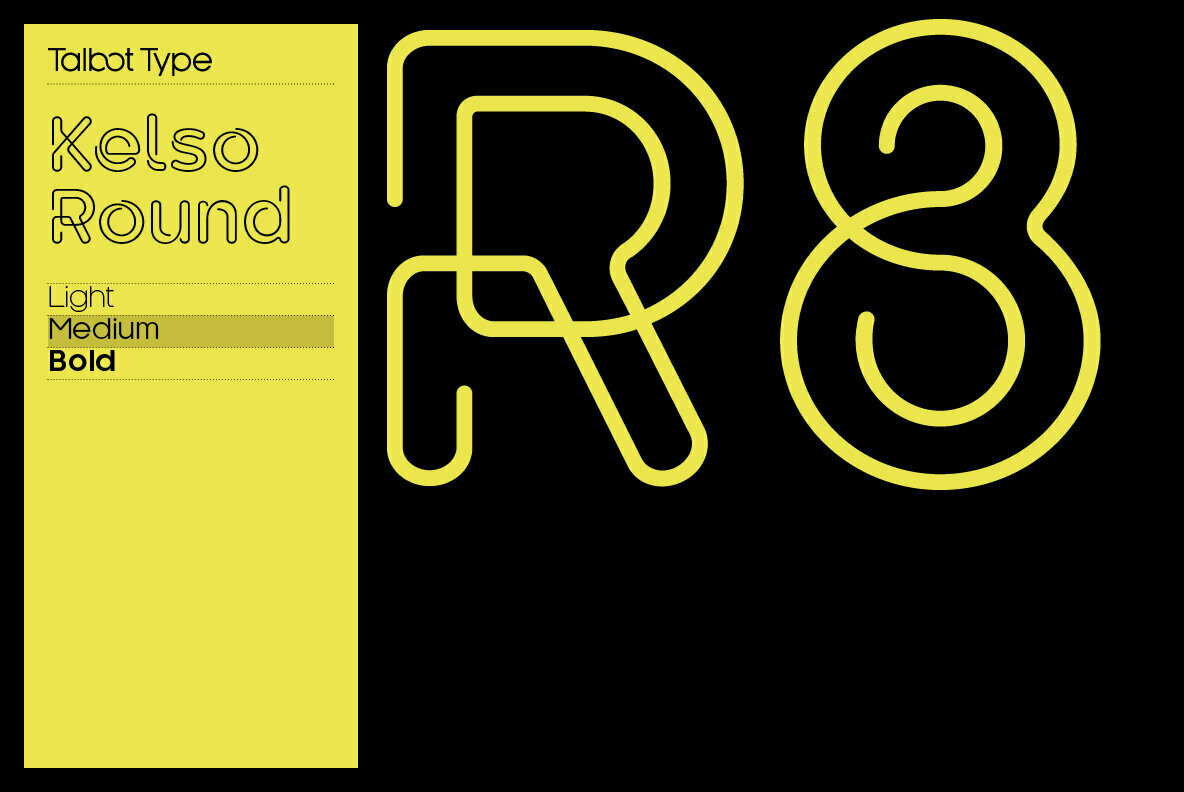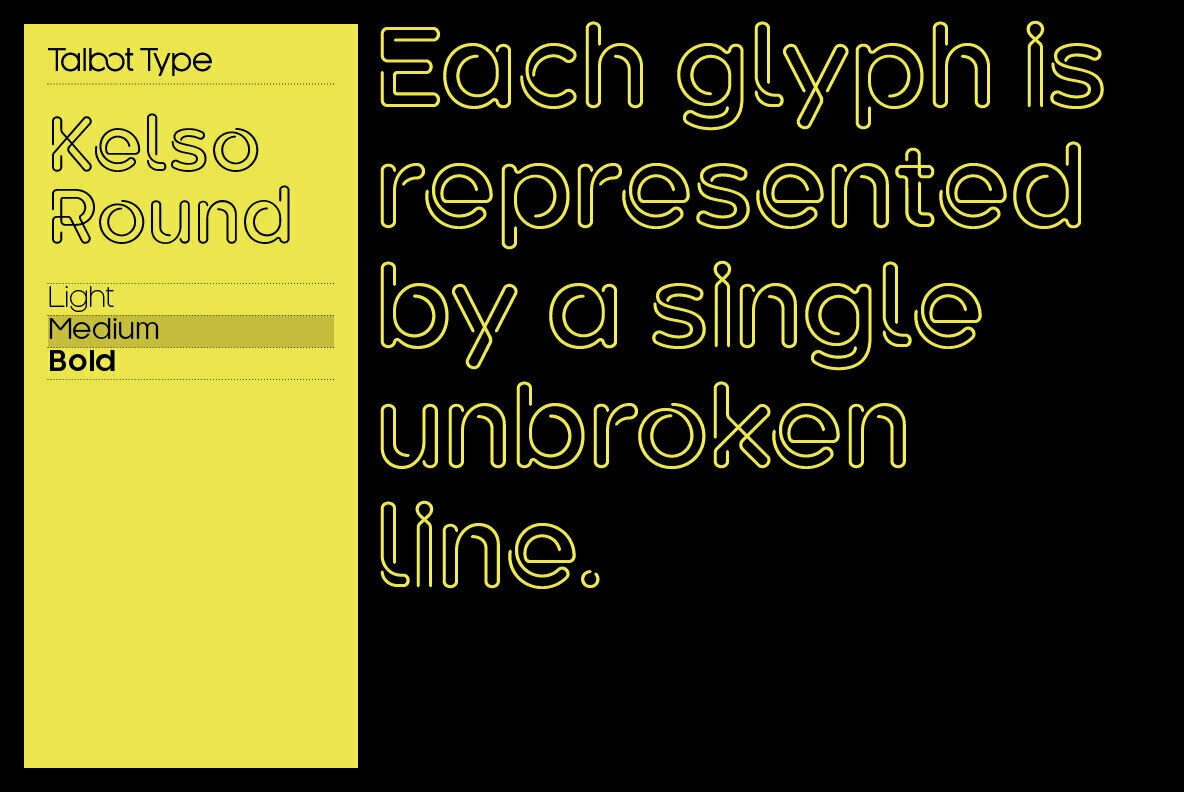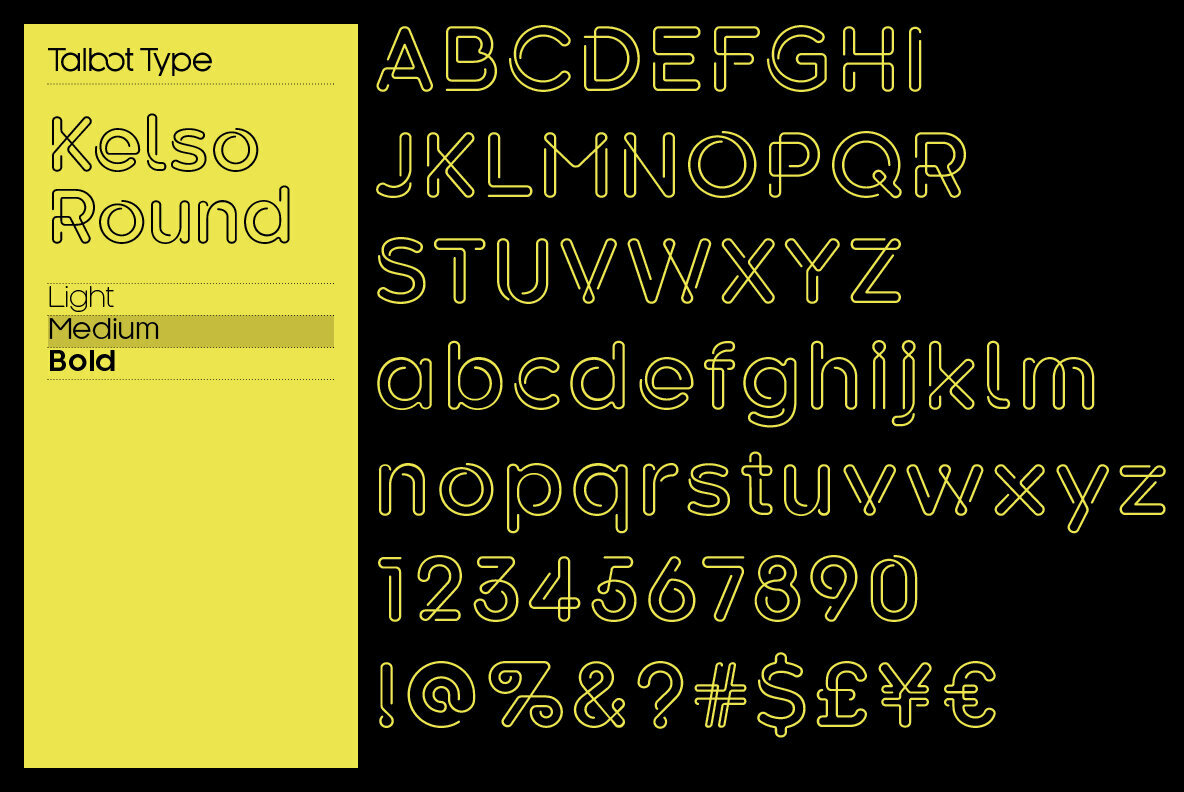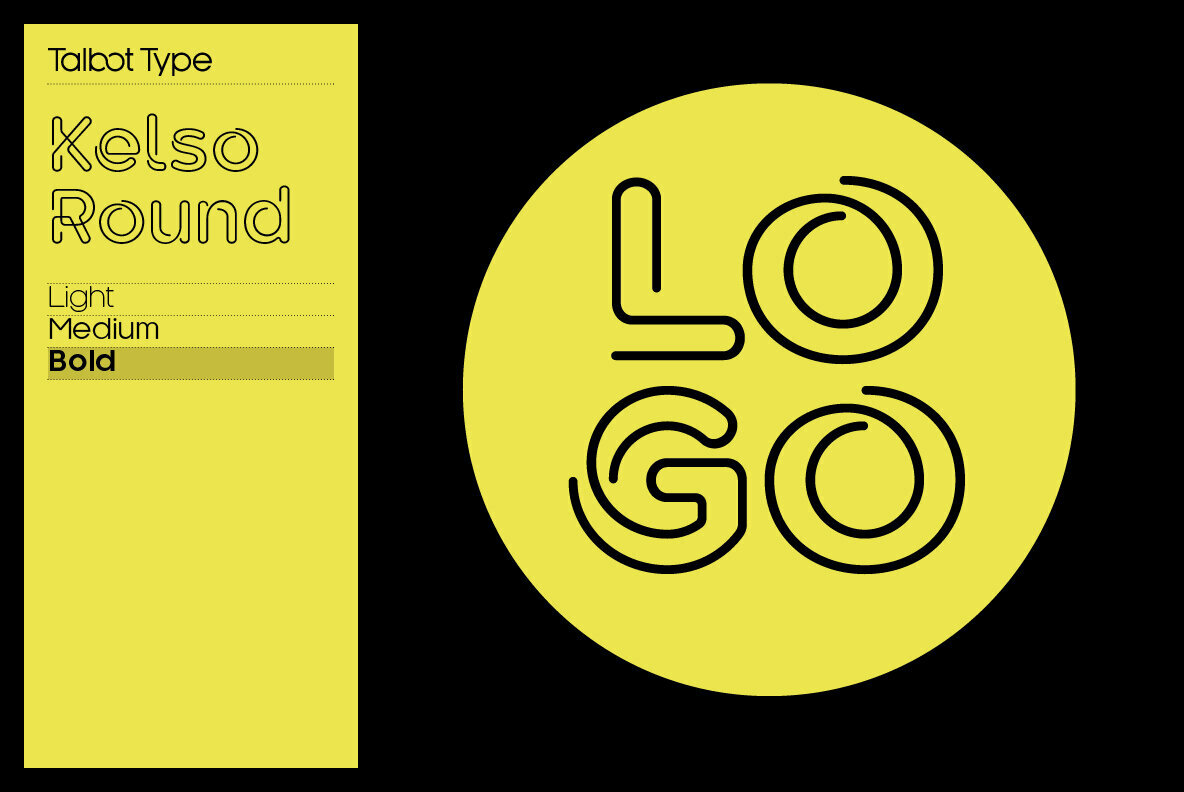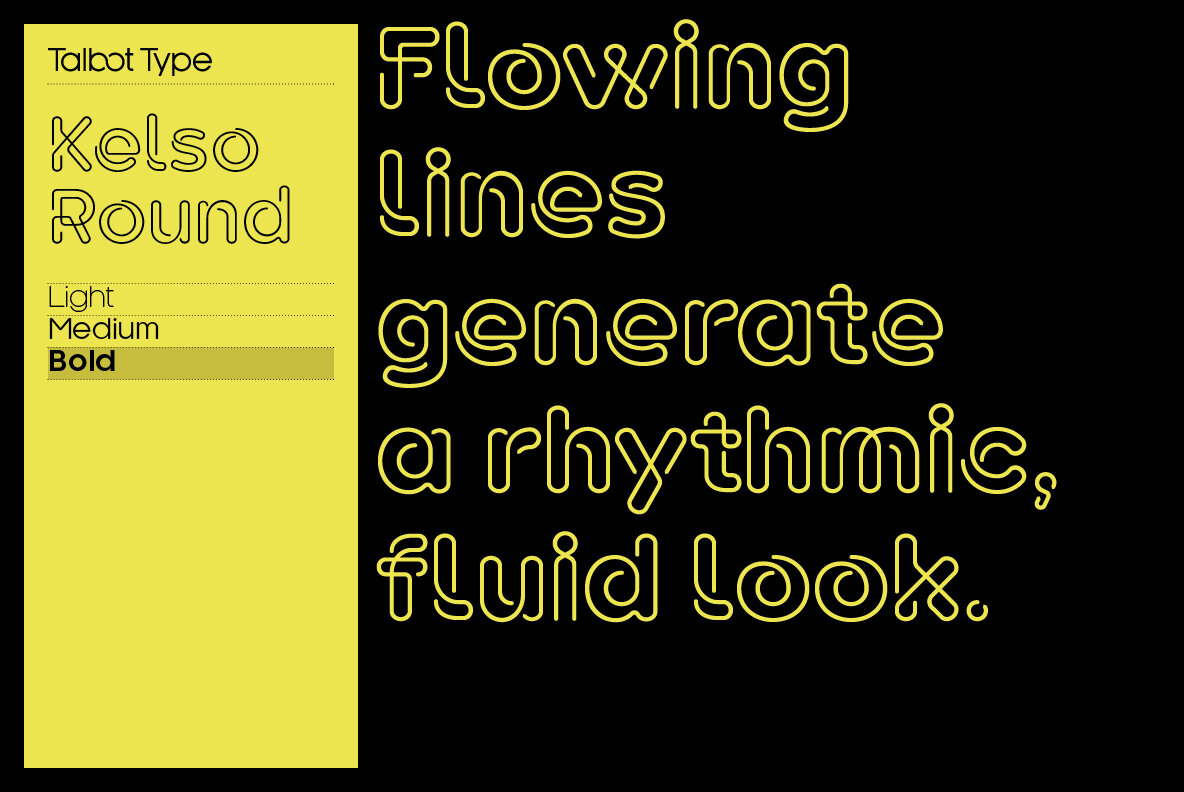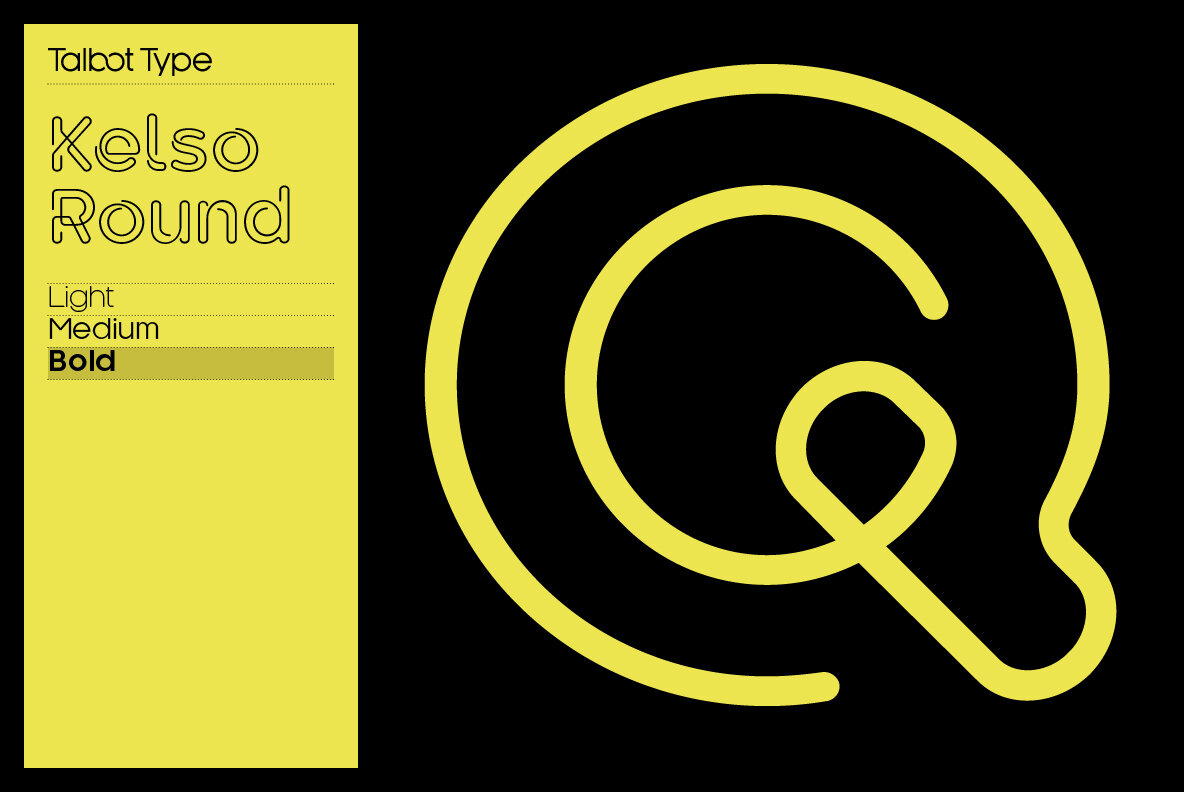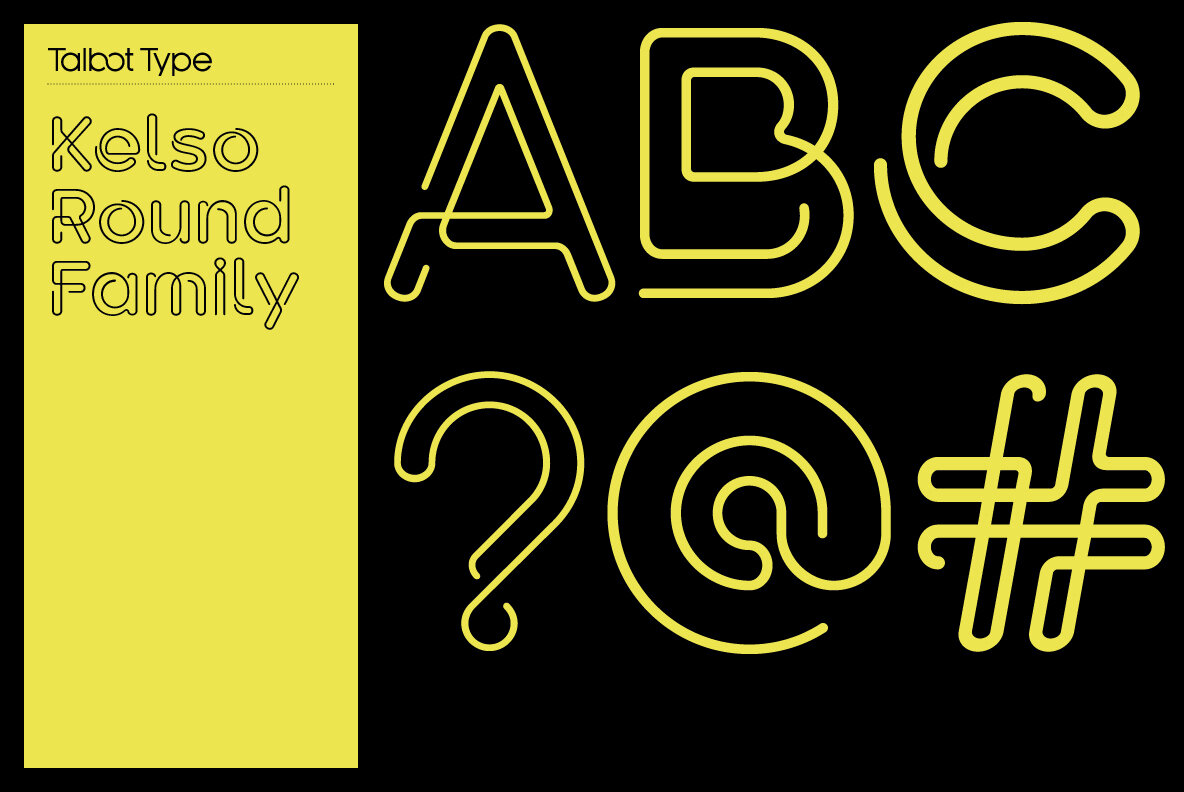
Kelso Round Font
Kelso Round is a highly original, outline display font. Each character is represented by a single continuous line to create a fluid and rhythmic look. A friendly and distinctive typeface that’s both easy to read and easy on the eye. Also available as Kelso, with sharper edges.